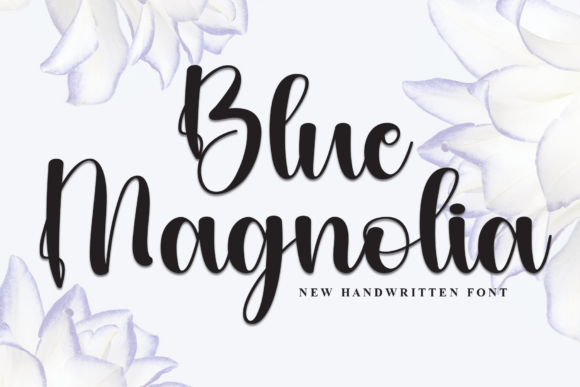
The Enchanting Blue Magnolia Font: A Designer’s Dream
I still remember the time I was working on a wedding stationery project, and my client asked for a font that was ‘romantic, elegant, and with a touch of whimsy.’ I scoured the internet, tried countless fonts, but nothing seemed to fit the bill. That was until I stumbled upon the breathtaking Blue Magnolia font. Its graceful handwritten strokes and refined loops instantly captured my heart, and I knew I had found the perfect match. In this article, I’ll share my love for Blue Magnolia, its features, and how to make the most of this stunning font.
An Honest Review of Blue Magnolia
• ✨ Romantic and elegant feel: Blue Magnolia exudes a sense of sophistication and refinement, making it perfect for weddings, stationery, and high-end branding.
• ✅ Handwritten with a soft rhythm: The font’s gentle flow and soft rhythm create a sense of warmth and approachability.
• 🔥 Versatile and highly legible: Blue Magnolia is easy to read, even in smaller sizes, making it suitable for a wide range of applications.
While Blue Magnolia is an exceptional font, there are a few minor quirks to be aware of:
• 🤔 Limited character set: Blue Magnolia might not have an extensive character set, but it does include essential characters and glyphs.
• ⚠️ Not ideal for body text: Due to its elegant and cursive nature, Blue Magnolia might not be the best choice for lengthy body text. It’s better suited for headings, titles, and short paragraphs.
The Story Behind Blue Magnolia
Blue Magnolia was designed by a talented type designer who drew inspiration from the beauty of nature. The font’s creator wanted to capture the essence of a romantic, elegant garden, with its refined loops and soft, flowing rhythm. The result is a font that exudes sophistication, whimsy, and charm.
Font Name Blue Magnolia Font
Author Creativewhitee
Q: What is Blue Magnolia’s personality?
A: Blue Magnolia is a romantic, elegant font with a refined and whimsical feel. It’s perfect for designs that require a touch of sophistication and charm.
Q: Does Blue Magnolia support OpenType features?
A: Yes, Blue Magnolia supports OpenType features like ligatures, stylistic alternates, and swashes. Experiment with these features to add a personal touch to your designs.
Q: Can I use Blue Magnolia for body text?
A: While Blue Magnolia is highly legible, it’s better suited for headings, titles, and short paragraphs. For body text, consider using a more traditional serif or sans-serif font.